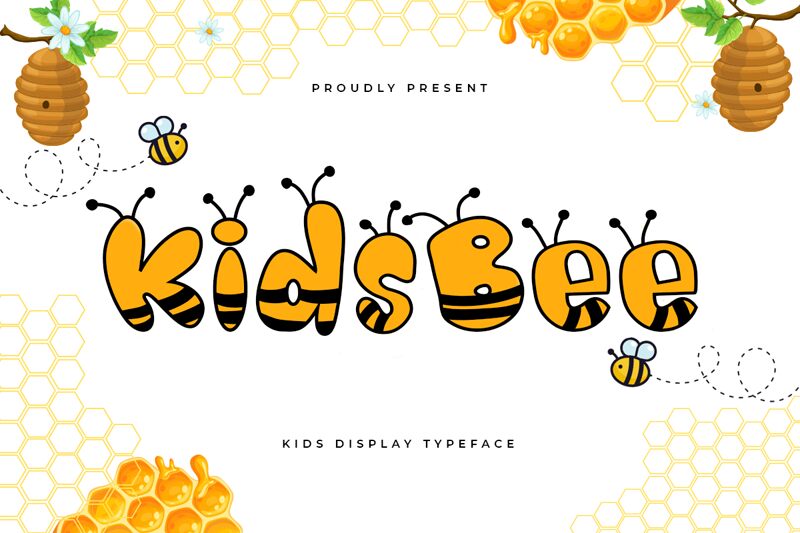
Kidsbee
Kidsbee font from Kong Font is a cartoonish display typeface whose bold and playful style is perfect for an array of children’s uses. The letters have decorative elements resembling bees which add to the whimsical feel while preserving readability and a child-friendly ambiance, perfect for approachable designs.